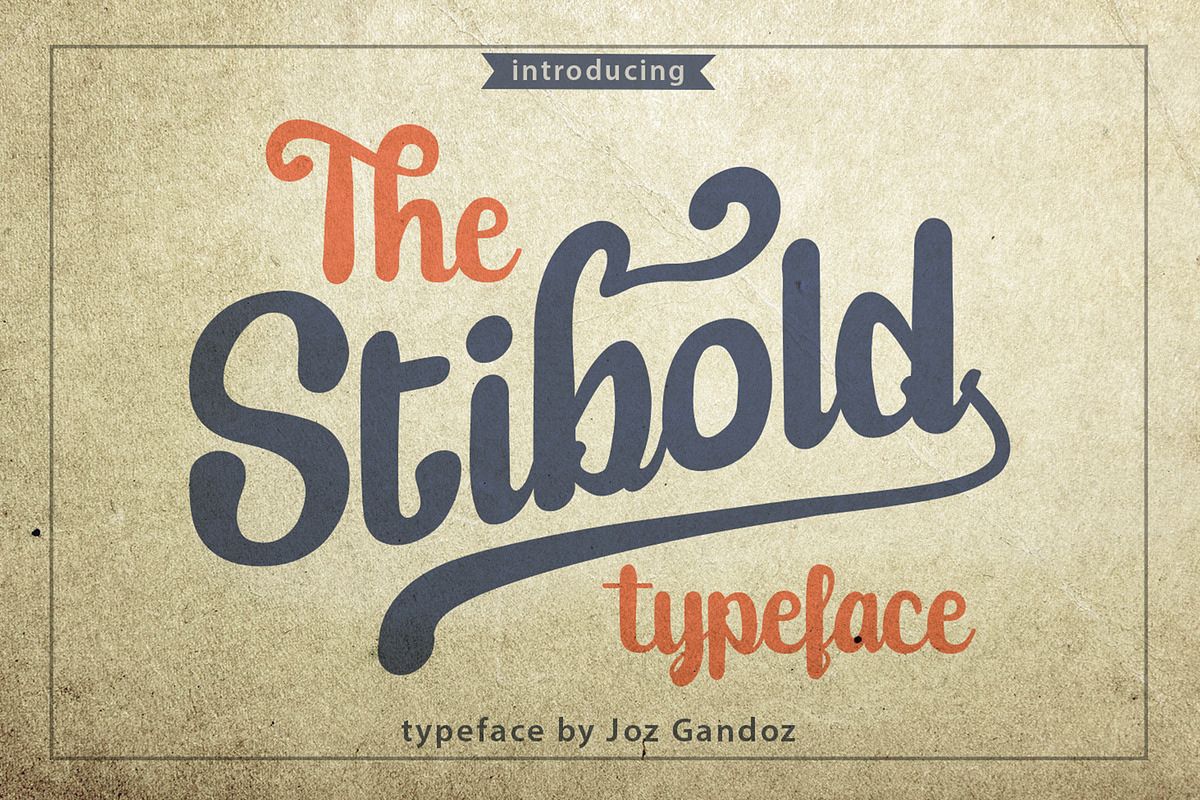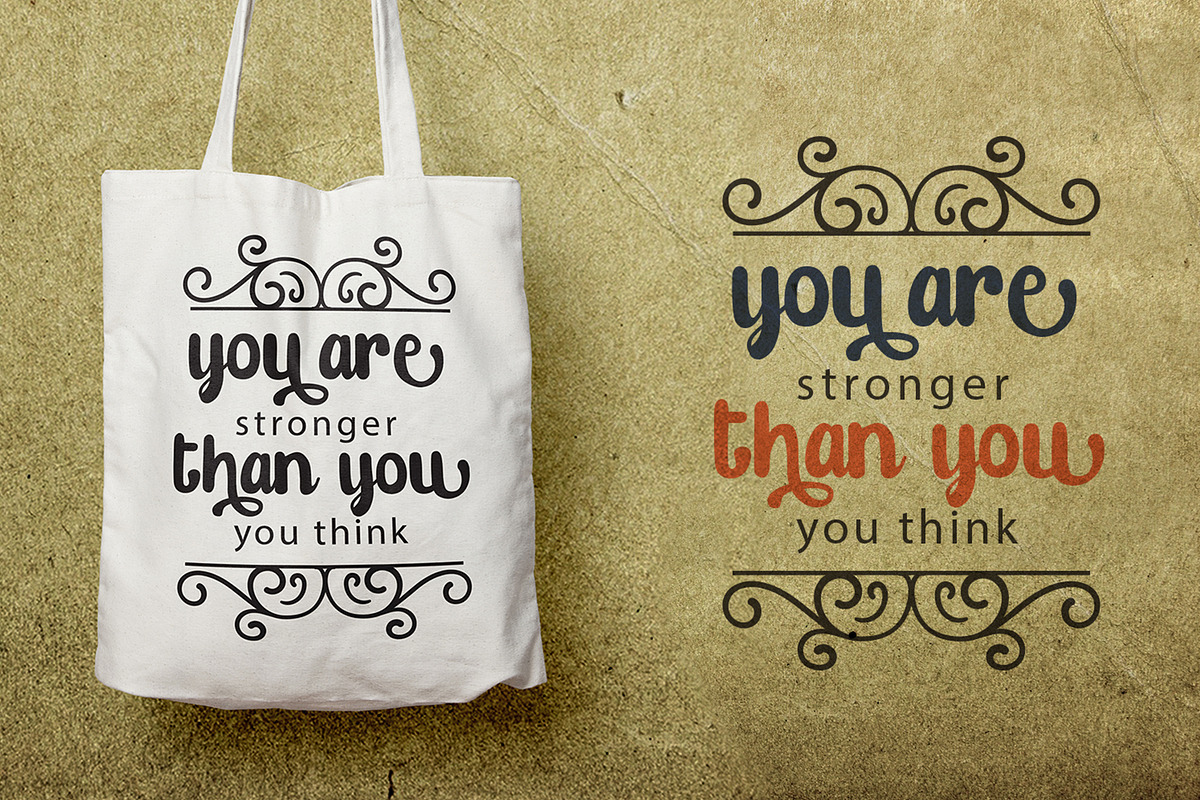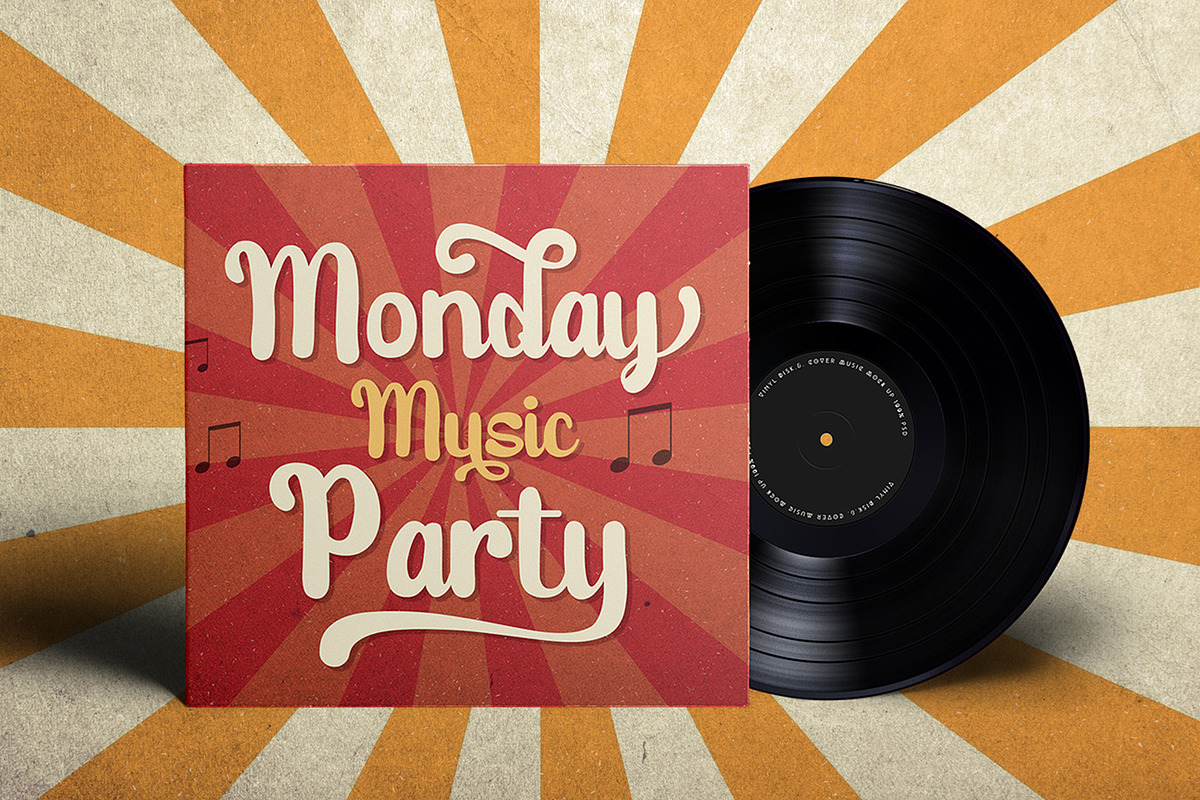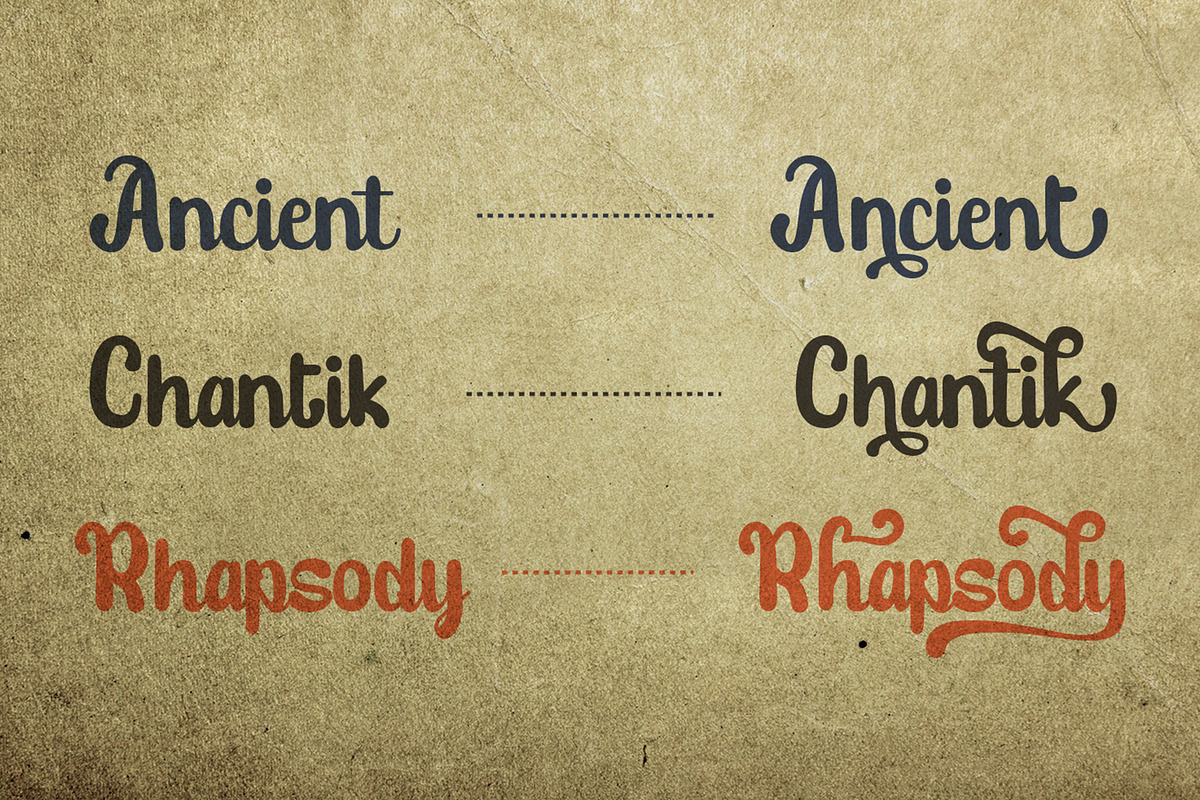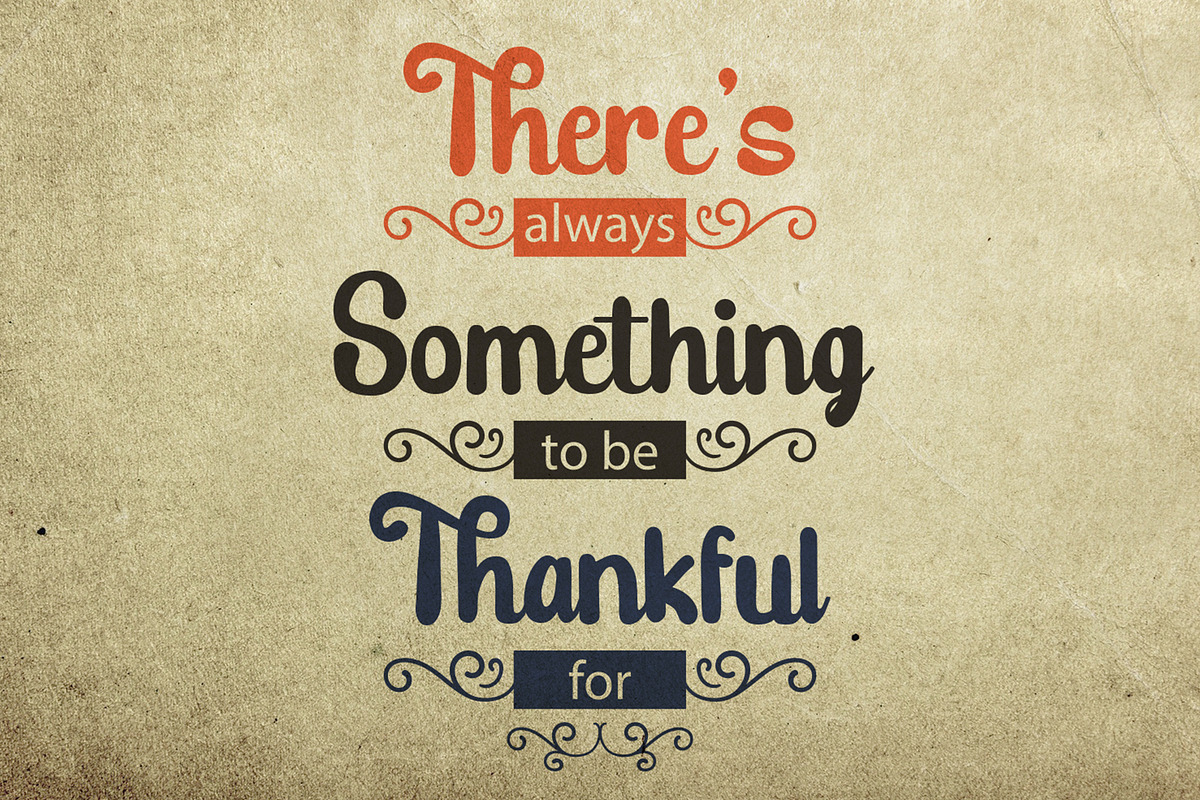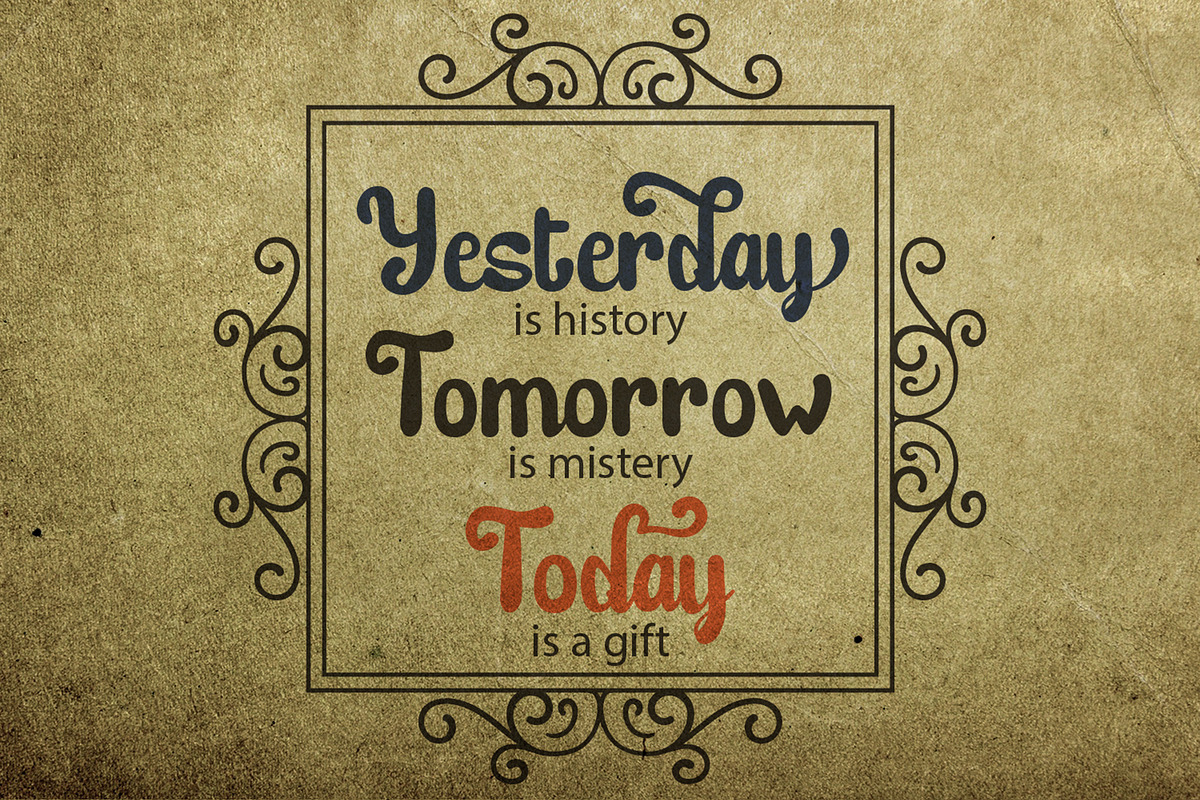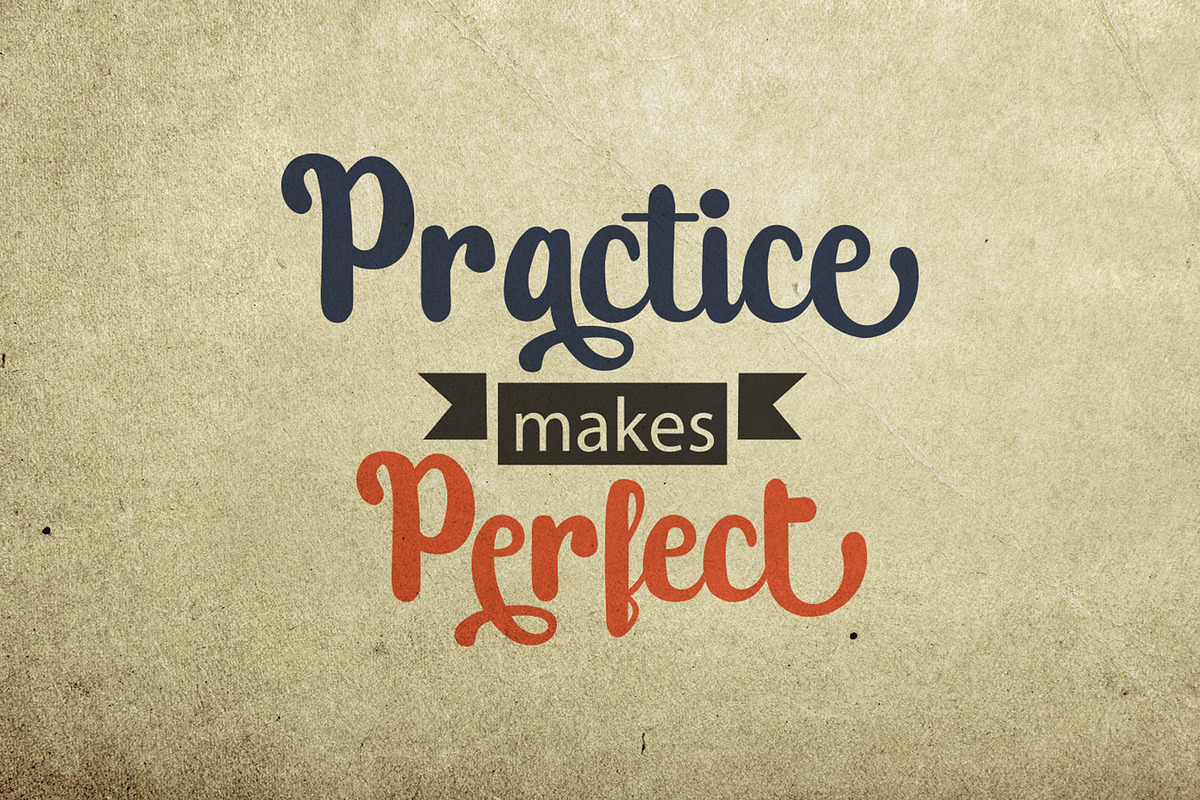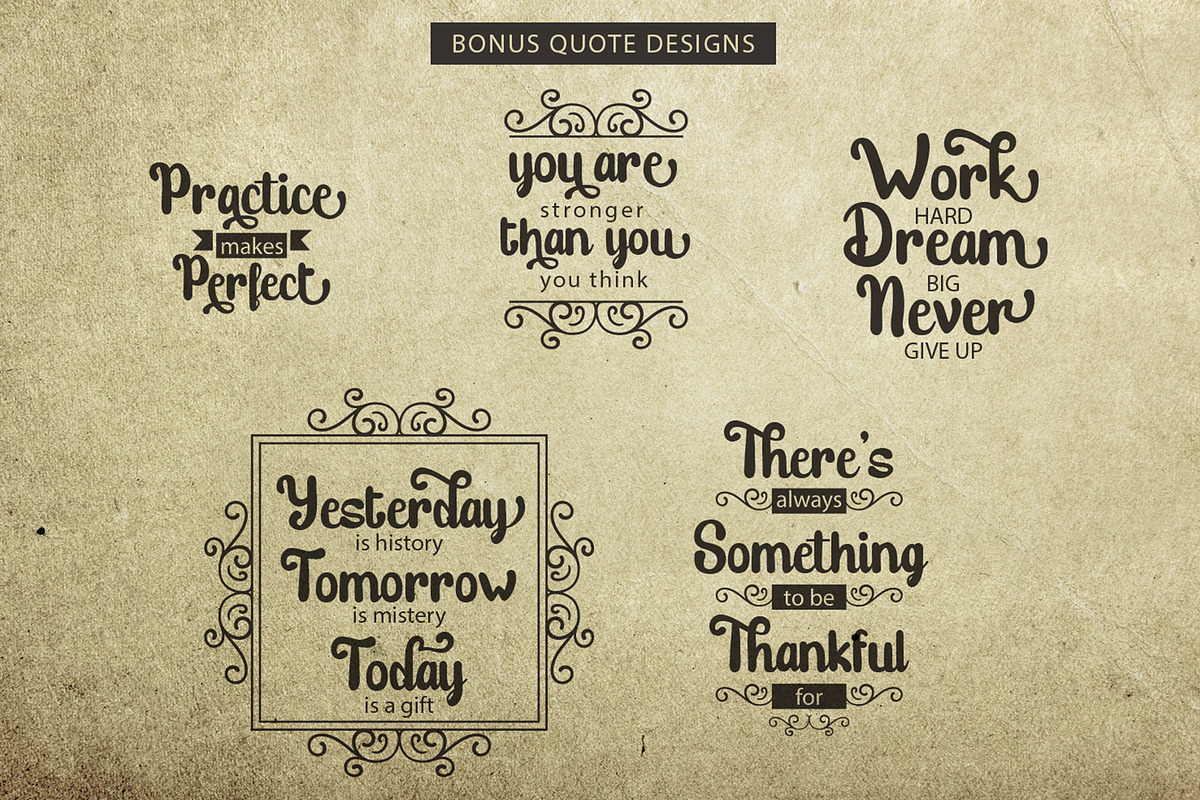
Stibold Typeface
Stibold Typeface will give your designs an authentic handcrafted feel. Stibold with its unique style is perfect for any project such as logo, branding, typography quotes, magazine or book cover, website header, clothing, branding, packaging design, restaurant and more !!. Also include quote designs as a bonus in AI format.
Why Stibold Typeface is worth a look
Stibold Typeface by LetterJos fits naturally into Branding, posters, packaging, typography.